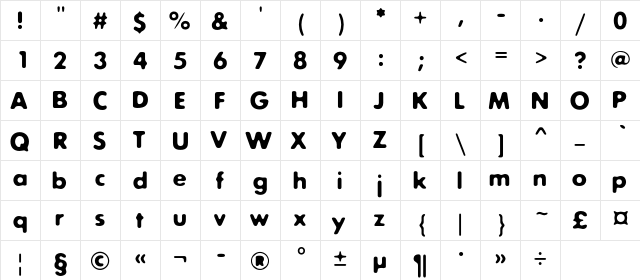
ExposureCTwo Regular
Design Context for ExposureCTwo Typeface
ExposureCTwo offers clean, dependable letterforms without strong stylistic allegiance, making it a practical choice for designers who need flexibility.
Pro Tip: Pair ExposureCTwo with a font of contrasting weight or personality to build a more expressive typographic hierarchy.